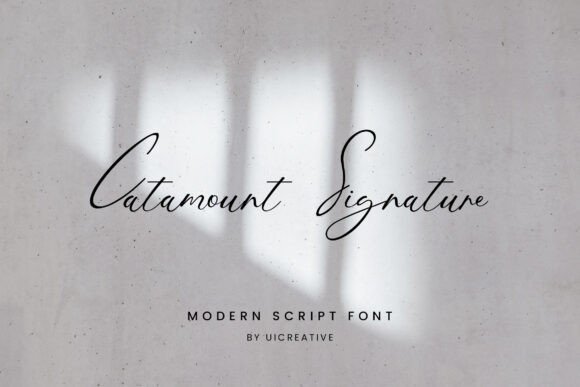
The Perfect Signature: Unveiling the Catamount Signature Font
Have you ever sat down to sign your name, only to feel like it just doesn’t capture the essence of your style? You know, that moment when you wish you had a signature that screamed “elegance” and “class”? Well, you’re not alone. As designers, we’re always on the lookout for the perfect font to convey our unique touch. Enter the Catamount Signature Font, a stunning modern script font that’s sure to make your signature shine.
This beautifully crafted font is perfect for a wide range of projects, from signature and stationery to logo design and branding. Its versatility and stylish aesthetic make it an invaluable tool for designers looking to add a touch of sophistication to their work. Whether you’re working on a high-end fashion project or creating a romantic wedding invitation, the Catamount Signature Font is sure to impress.
- Unique Characteristics: The Catamount Signature Font features a distinctive, hand-crafted feel with subtle irregularities and texture, giving it a unique personality
- Font Family: Includes multiple font styles, including regular, bold, italic, and bold-italic, allowing for a range of design options
Designer Review: Catamount Signature Font
I recently had the chance to work with the Catamount Signature Font, and I must say it’s an interesting addition to my design arsenal.
- ✨ Unique aesthetic: The Catamount Signature Font boasts a distinctive, hand-drawn feel that can add a touch of personality to your designs.
- ✨ Versatile: This font is suitable for a wide range of projects, from logos and branding to posters and editorial content.
- ✨ Well-crafted: The font’s creator has clearly put a lot of thought into its design, with attention to detail and a focus on legibility.
- ⚠️ Limited character set: The Catamount Signature Font is not a full-featured font, which means it may not have the characters you need for certain projects.
- ⚠️ Some readability issues: While the font is generally legible, it can be difficult to read in smaller sizes or when used for extended blocks of text.
- ⚠️ Not suitable for all audiences: The font’s unique aesthetic may not be to everyone’s taste, and it may not be the best choice for projects that require a more conservative or traditional look.
Overall, I think the Catamount Signature Font is a solid choice for designers looking to add some personality to their work. However, it’s essential to be aware of its limitations and use it judiciously in your projects.
For the best results, use the Catamount Signature Font in bold or italic styles to add emphasis to your text. You can also pair it with other fonts to create a unique and eye-catching design.
The Catamount Signature Font is ideal for:
- Creating professional-looking logos and branding materials
- Designing business cards and letterheads
- Adding a touch of elegance to wedding invitations and event materials
Carolyna Pro is a modern script font with a elegant and sophisticated feel. It’s perfect for designers who want to add a touch of luxury to their projects. Carolyna Pro has a more refined and polished look compared to Catamount Signature Font, making it ideal for high-end branding and advertising.
Comparison: While Catamount Signature Font has a more rustic and handwritten feel, Carolyna Pro is more refined and elegant. Carolyna Pro is better suited for projects that require a high level of sophistication.
Great Vibes is a modern script font with a relaxed and casual feel. It’s perfect for designers who want to add a touch of fun and playfulness to their projects. Great Vibes has a more dynamic and expressive look compared to Catamount Signature Font, making it ideal for creative and artistic projects.